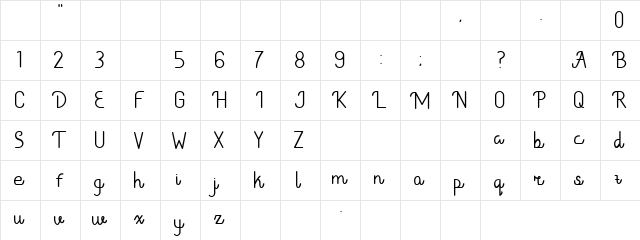
Cadancy Demo Regular
| Designer | Irgy Widhiarma |
Design Context for Cadancy Demo Typeface
Cadancy Demo is a composed and adaptable typeface that performs quietly and consistently across a wide range of design contexts.